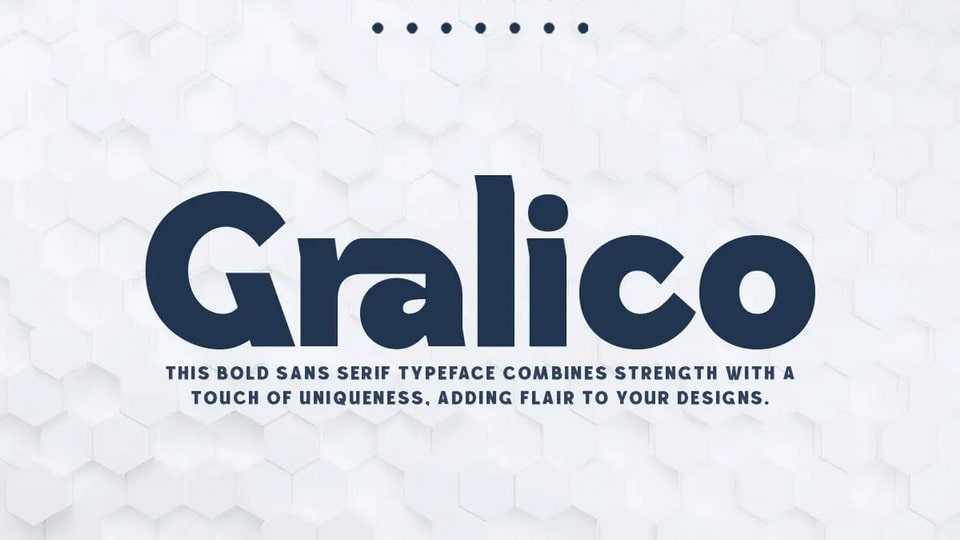
Download Gralico font, a typeface that embodies bold elegance and a touch of modern flair, this sans-serif typeface stands out as a beacon of creativity in the design world.